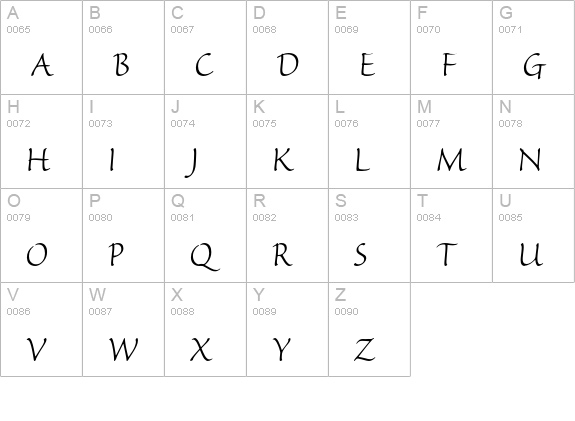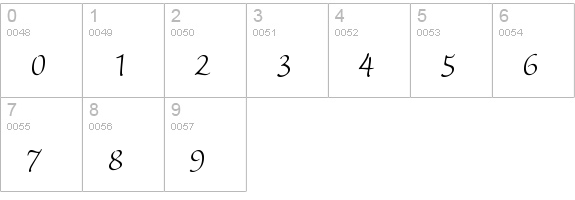
Sanvito Light Font Details
Sanvito Light is a refined, elegant variant in the Sanvito typeface family \xE2\x80\x94 well suited to elegant body text, refined sub-headings, and luxury branding.
Sanvito Light is a modern and elegant font that exudes sophistication and clarity. With its sleek and refined lines, this typeface is perfect for creating a stylish and professional appearance in any design project. Whether you're designing a logo, creating a brochure, or crafting a website, Sanvito Light will elevate your work to new heights. This font features a harmonious balance of thin strokes and rounded terminals, giving it a contemporary and polished look. The letters flow seamlessly, creating a sense of fluidity and grace. The generous spacing between characters ensures optimal legibility, even at smaller sizes. One of the standout features of Sanvito Light is its versatility. It is equally at home in both print and digital media, making it suitable for a wide range of applications. From branding and editorial design to advertising and packaging, this font will effortlessly enhance the visual impact of your creations. The best part? Sanvito Light is available for free download at FontsMarket.com. This means that you can easily obtain this exceptional font without any cost. Whether you're a professional designer or a hobbyist, having access to high-quality fonts like Sanvito Light can significantly elevate your design projects. So why wait? Unlock the potential of your designs with Sanvito Light. Download it for free today at FontsMarket.com and witness the transformative power of this stunning font.